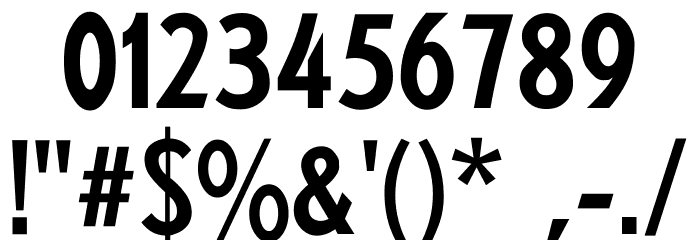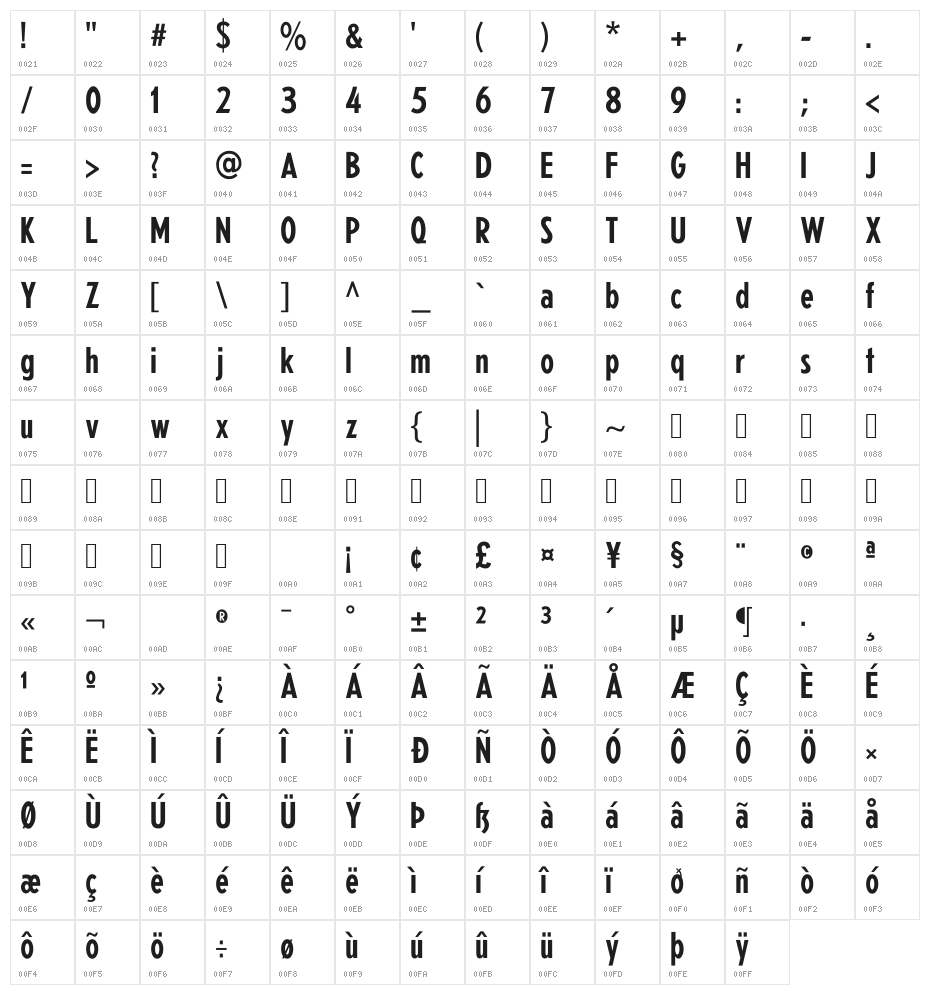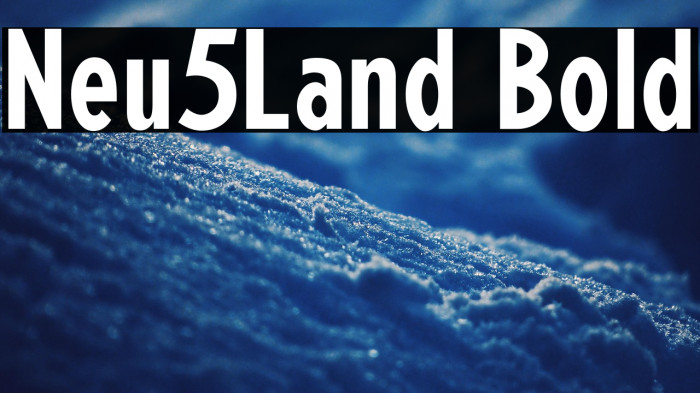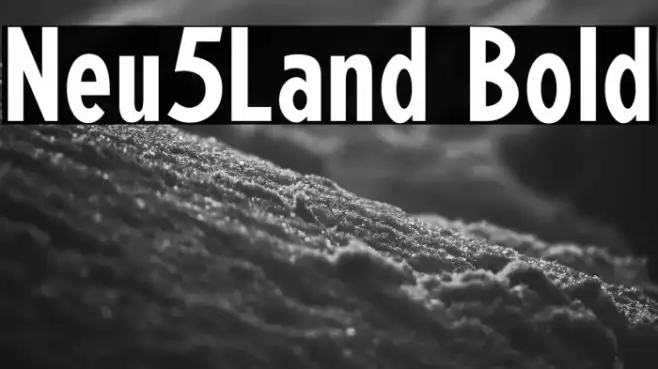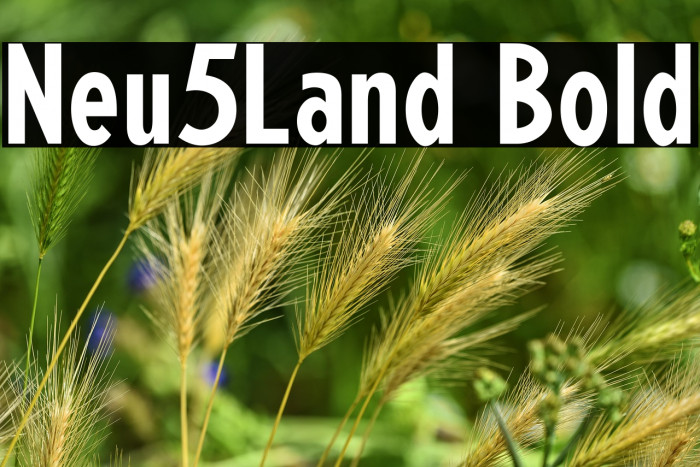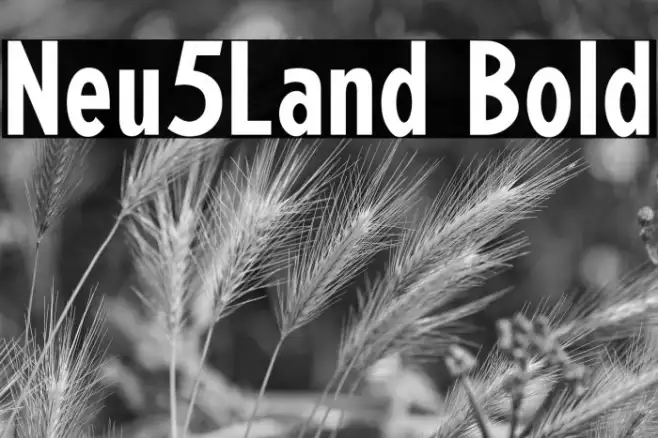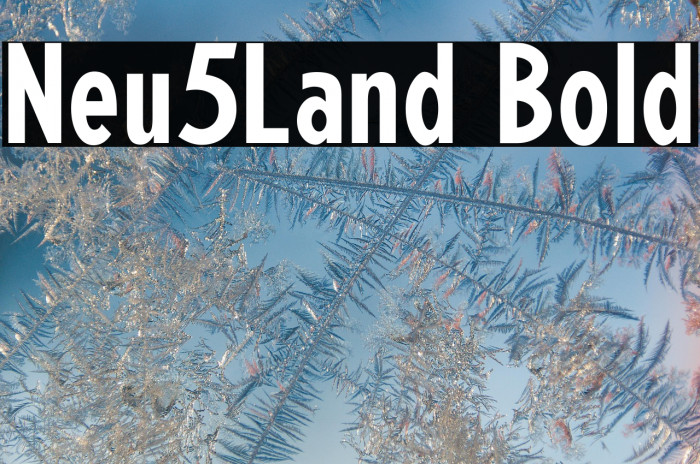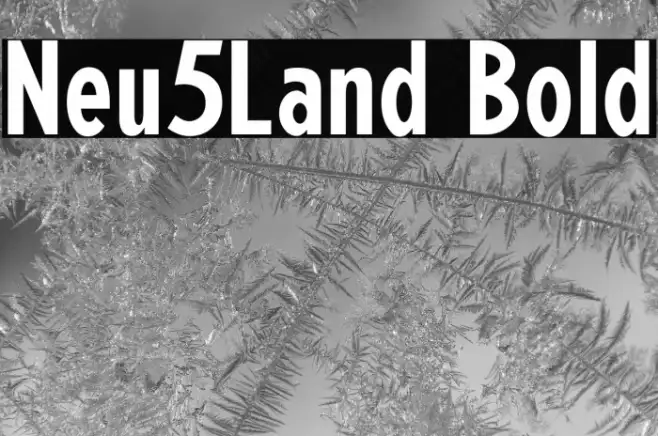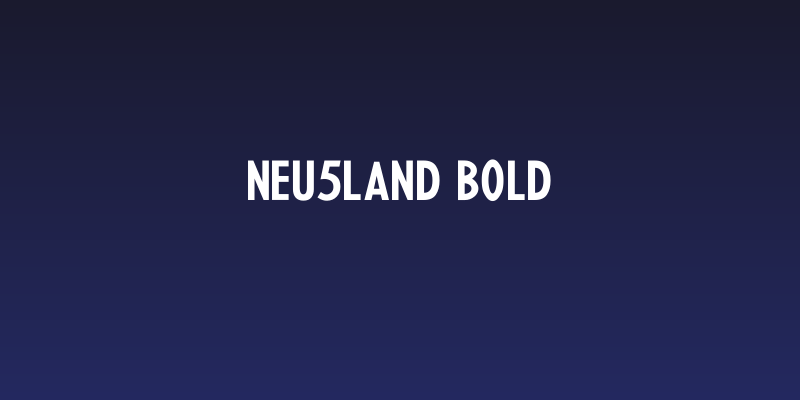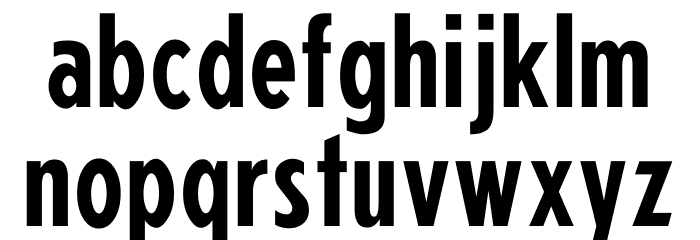
Neu5Land Bold Font
Neu5Land Bold Description
This bold typeface features strong, clean lines and a modern aesthetic. The uppercase letters are tall and commanding, while the lowercase letters maintain a consistent height, providing a harmonious balance. The numerals are equally robust, ensuring clarity and readability. Special characters are well-defined, making them suitable for various applications. The overall design is straightforward yet impactful, making it ideal for attention-grabbing headlines and branding materials.